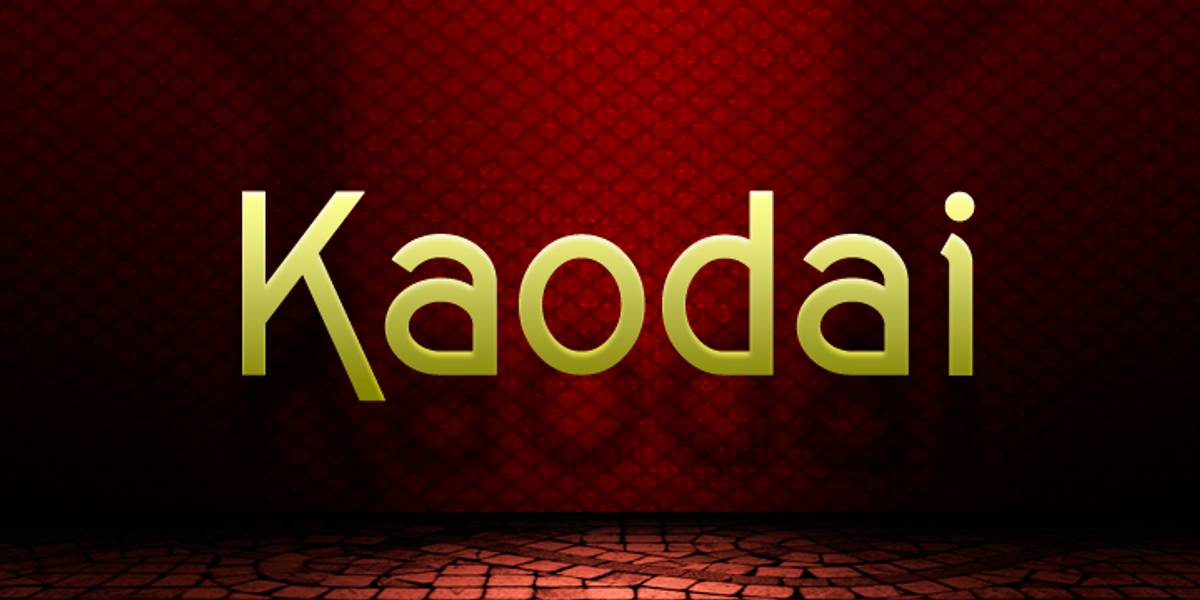
Kaodai
The Kaodai typeface is informal and minimalist in style, yet refined. Its predecessor is the Coamei family, so it can be deduced that Copilme, Coamei, and Kaodai are cousin families. Its three weights are perfect for reading, titles, or graphic elements. It works perfectly in banners, flyers, logos, and even semi-formal texts.